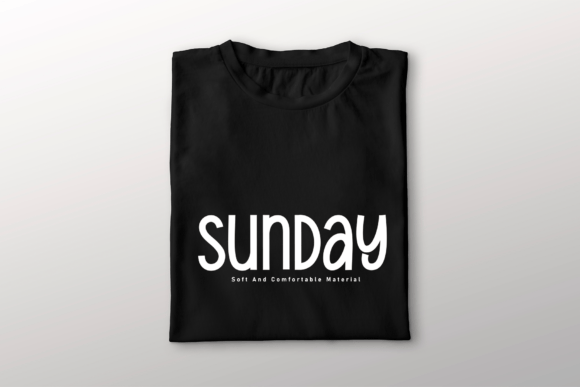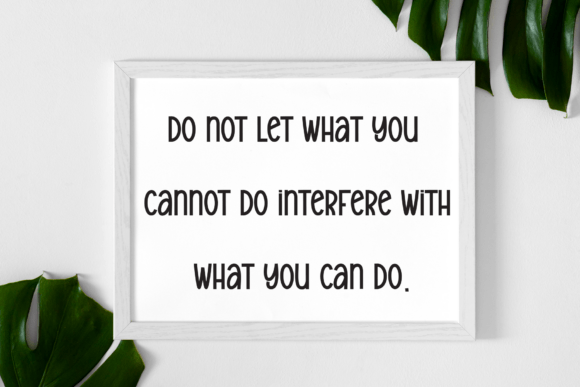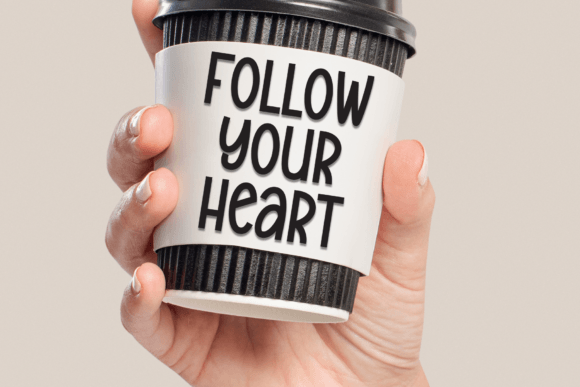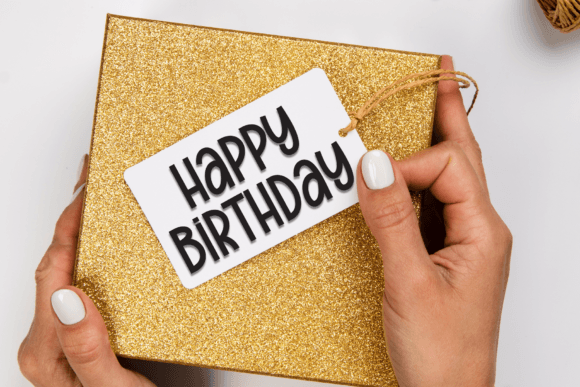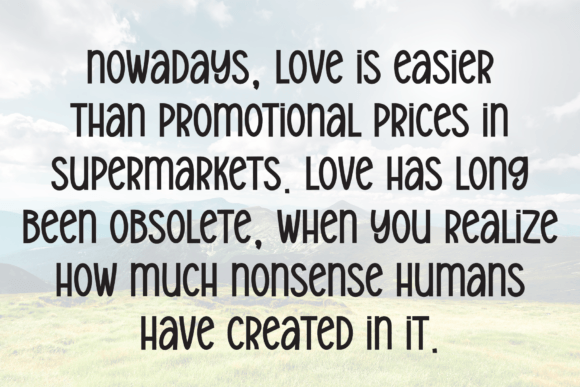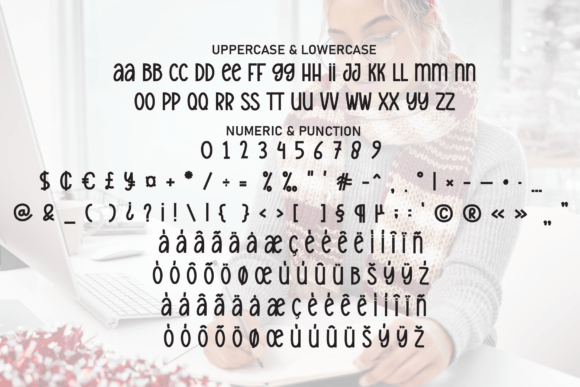
Introduction to Designer Christmas Font
Introducing a charming and approachable handwritten display font that exudes sweet friendliness.
Infused with a delightful sense of fun, this unique font is perfect for crafting wedding invitations, personalized cards, or adding a dash of joy to any design Habitually harmonious, this typeface brings a touch of whimsy to any project, making it your go-to choice for a keen and playful visual impact.